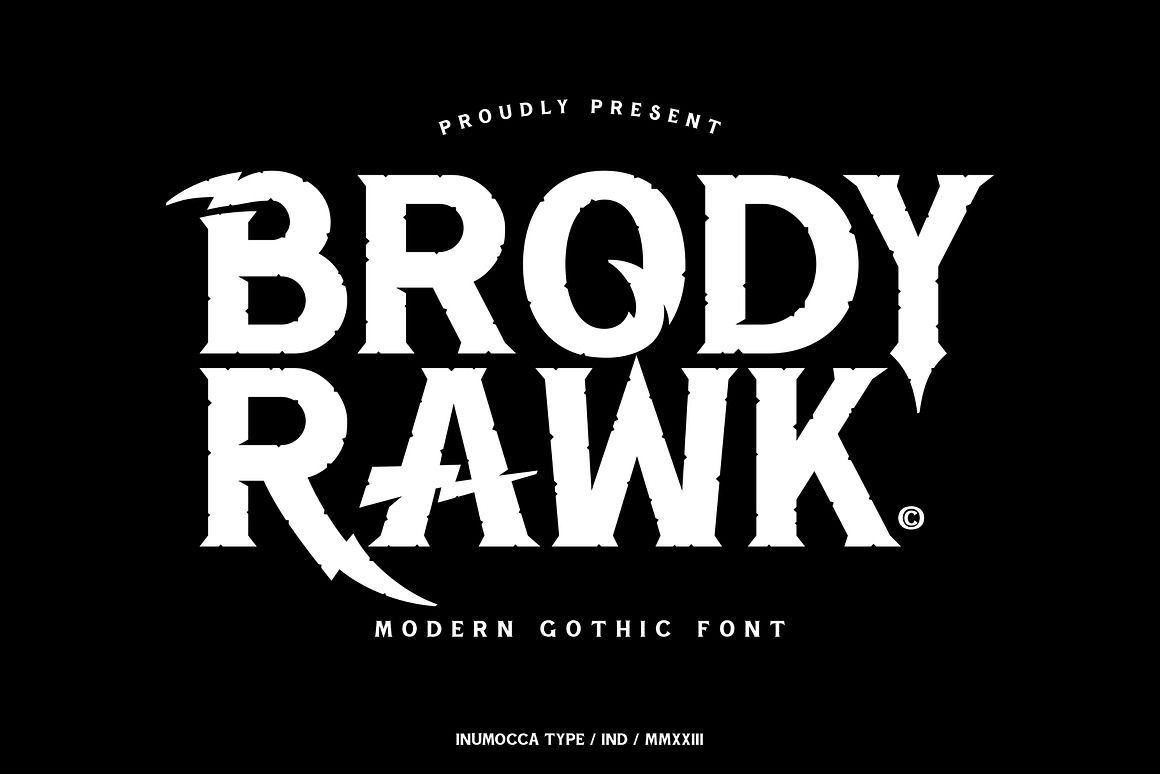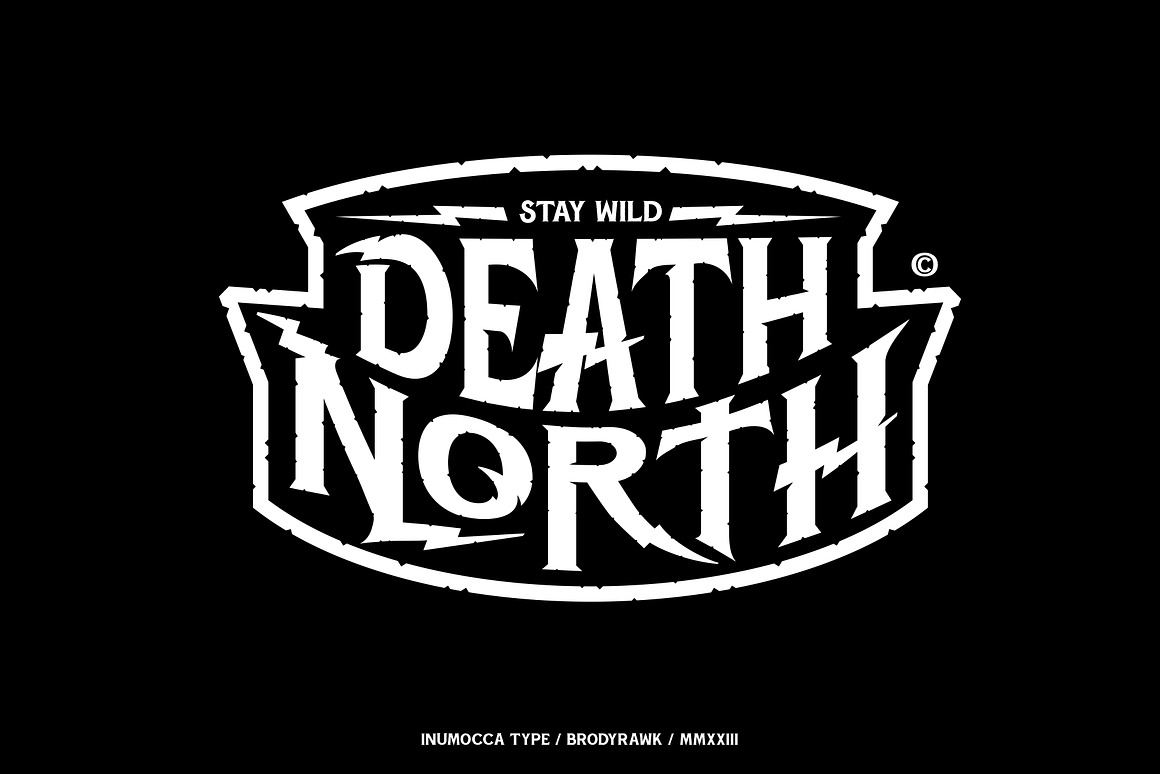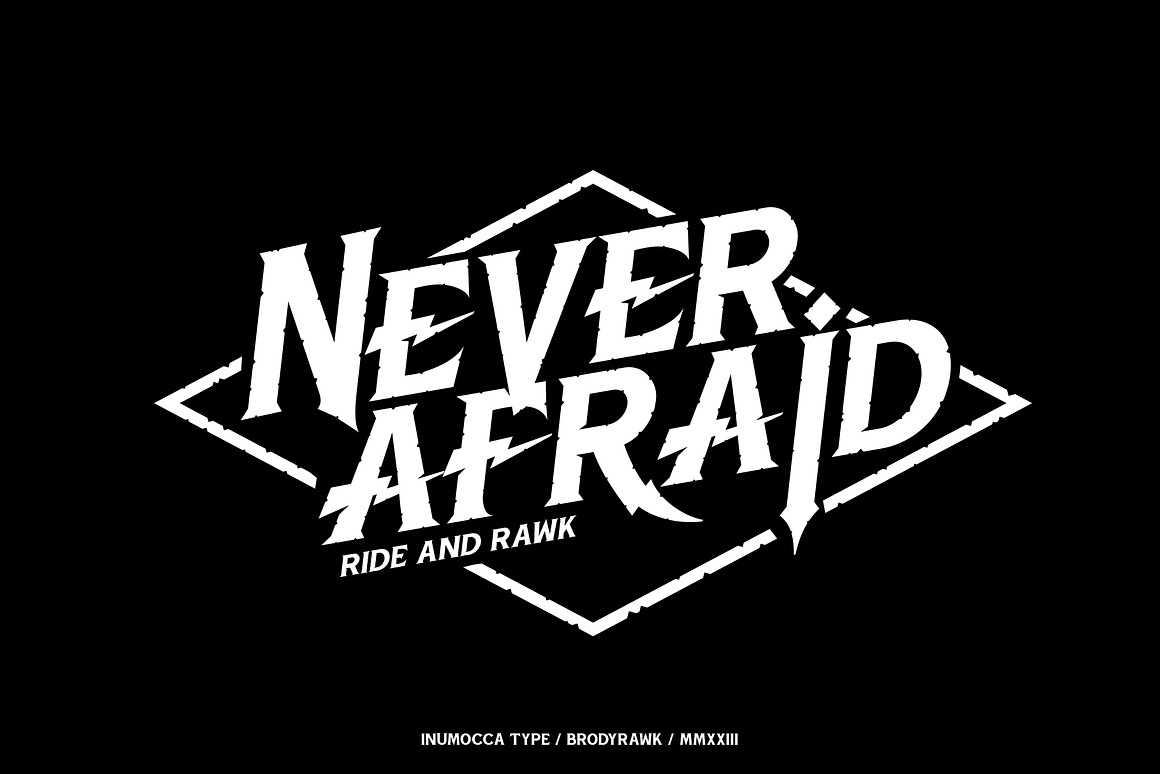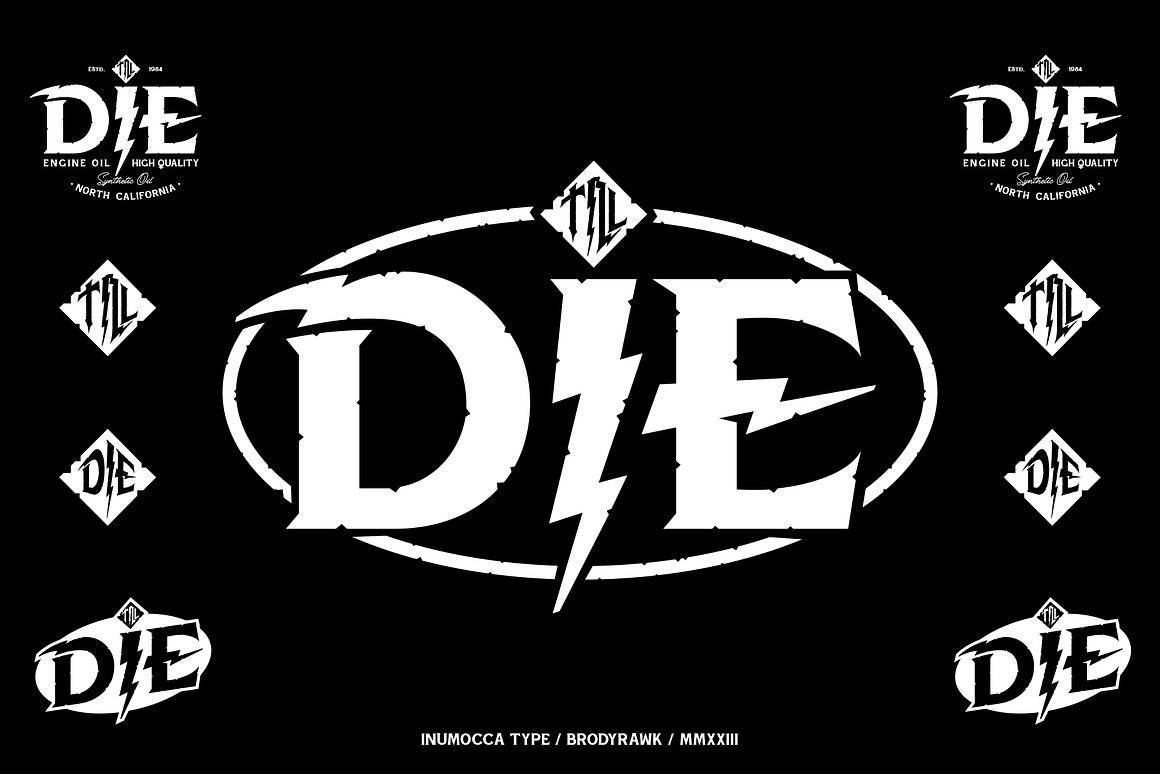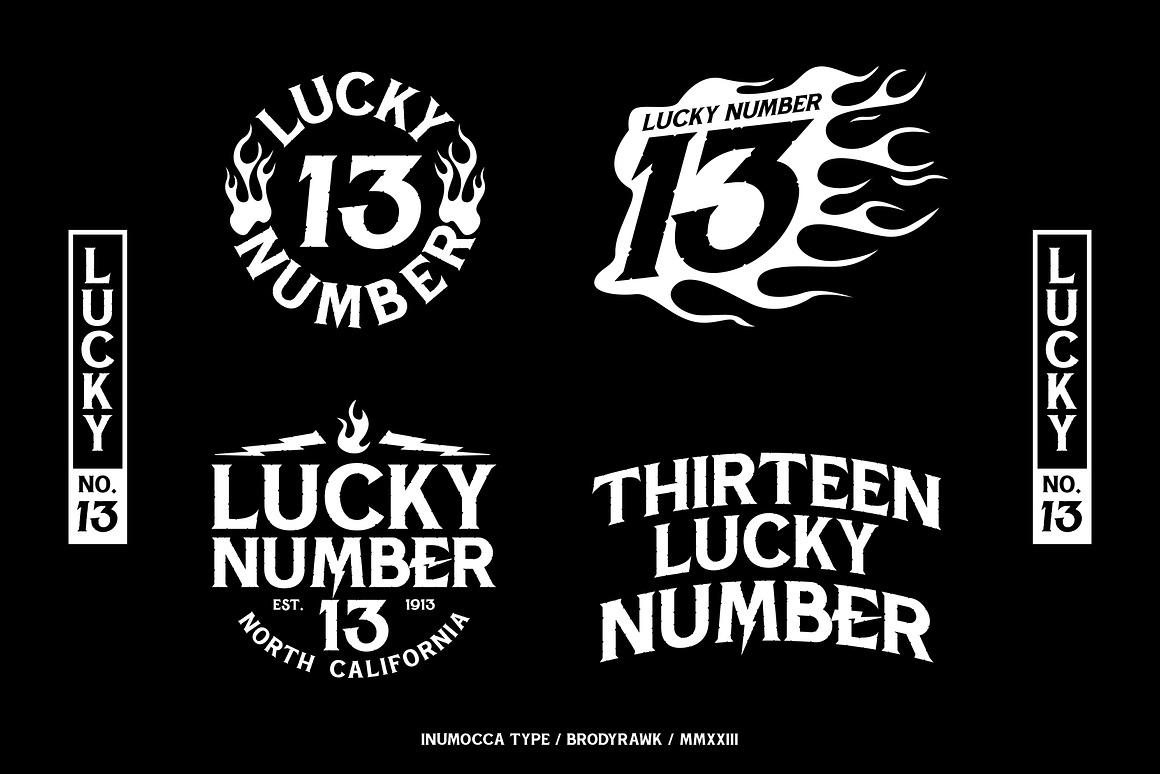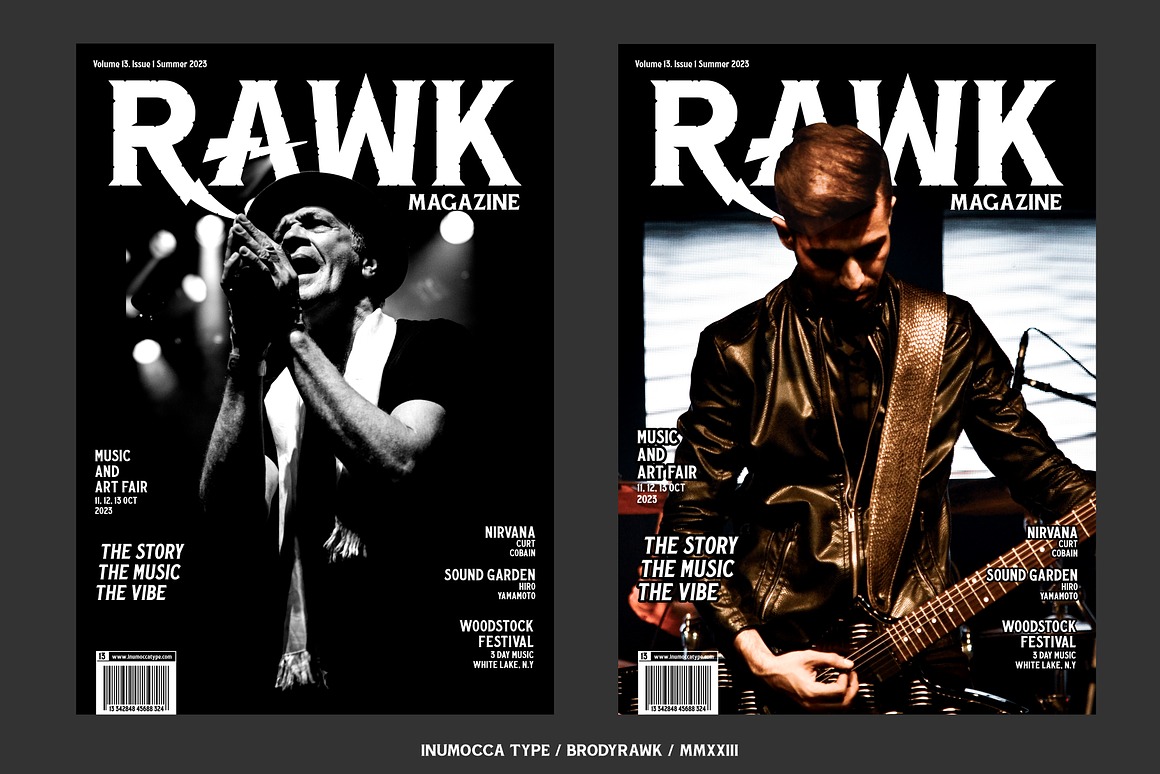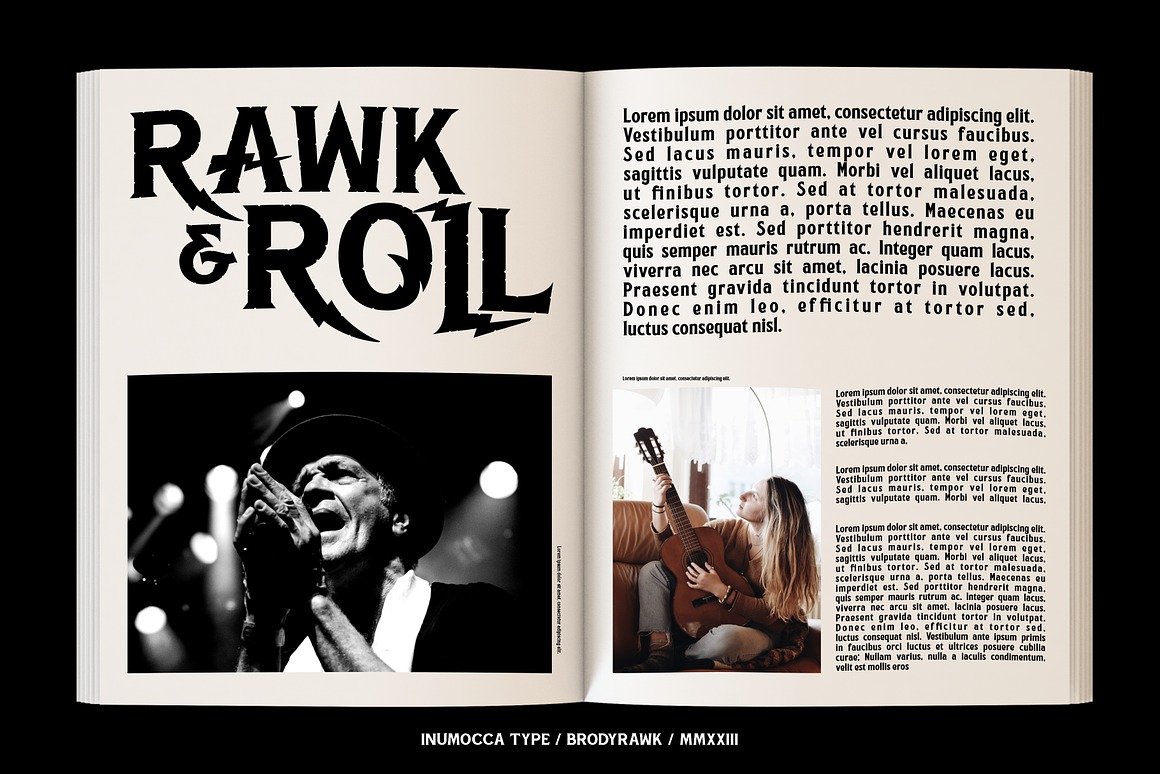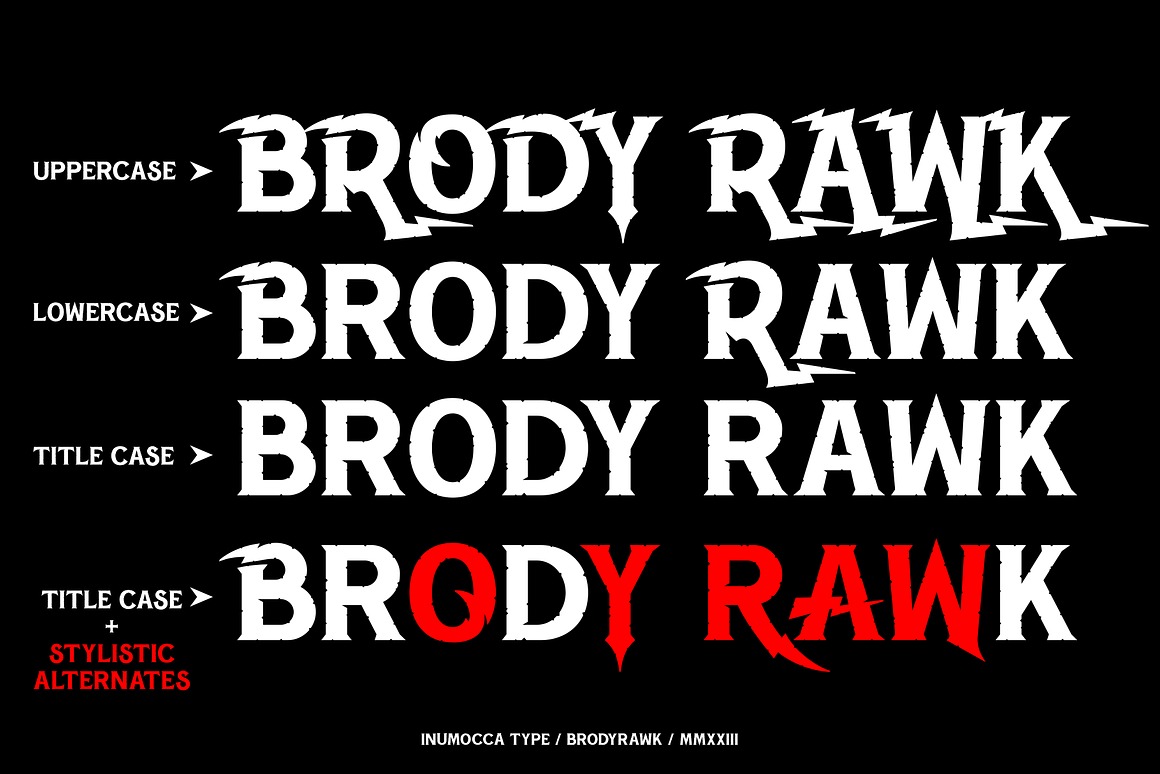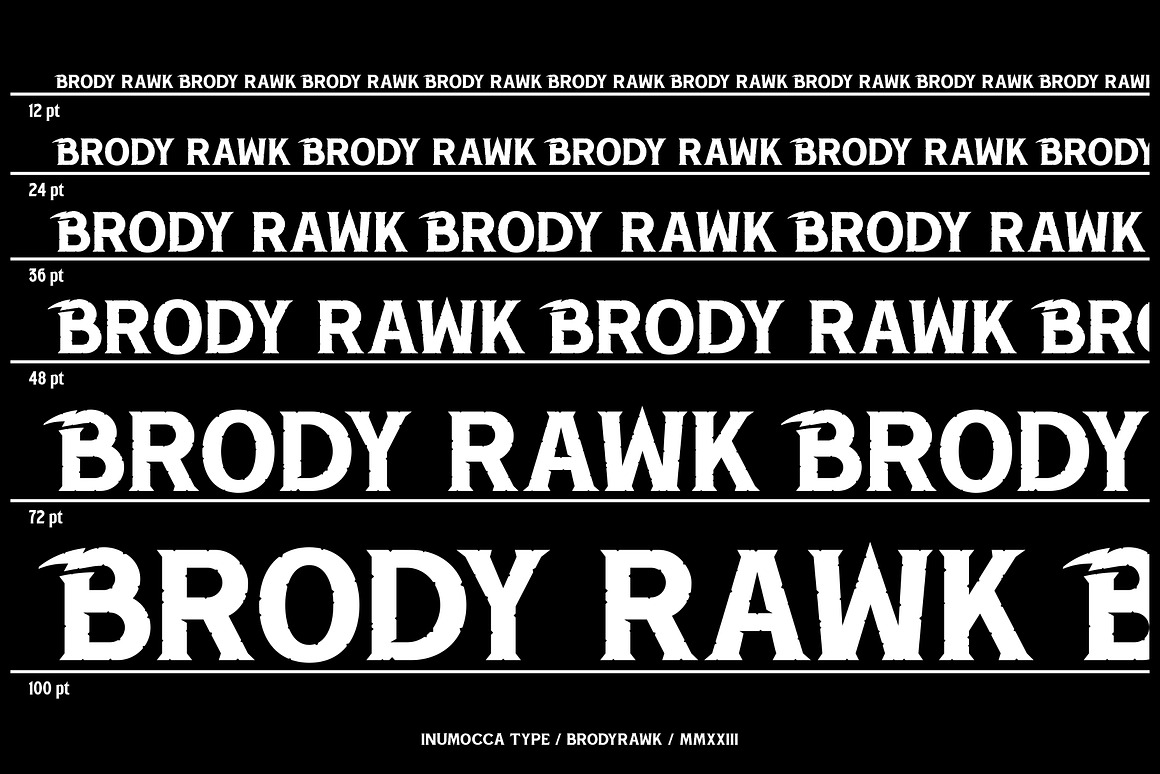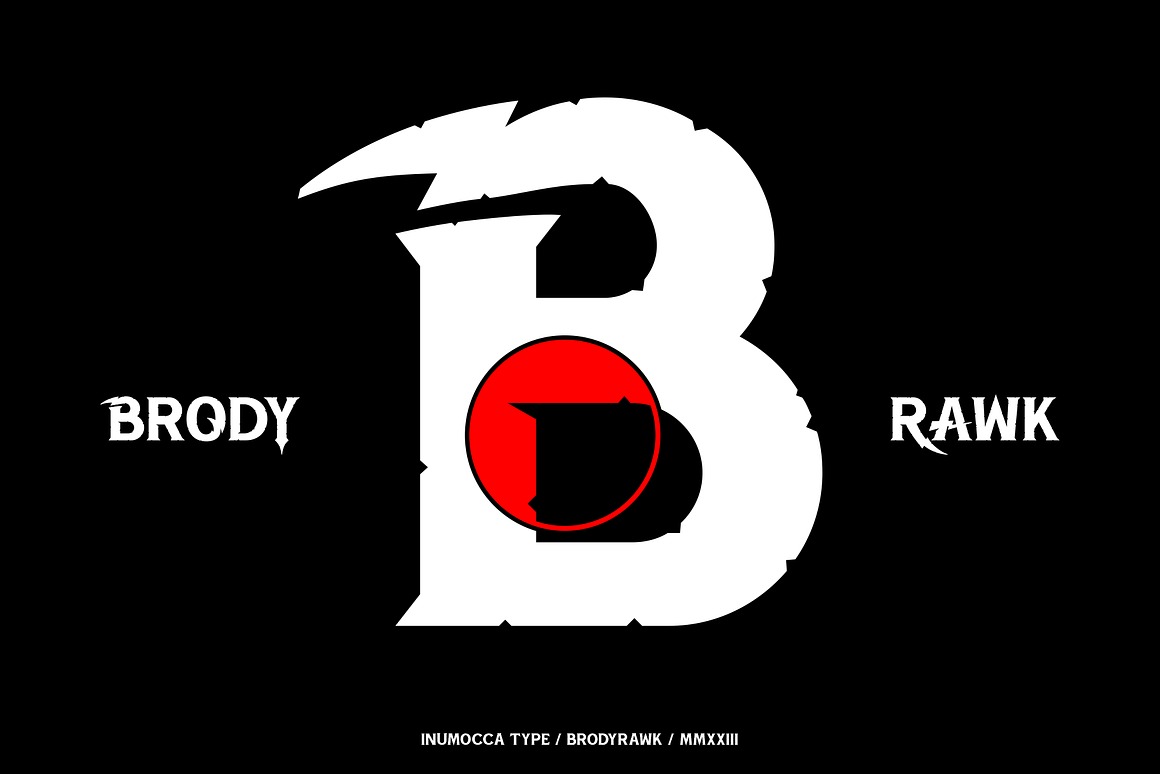
4 Halloween & Horror Display Fonts
Brand new unique & creative style typography bundle with 4 multilingual display font sets! All these fonts are trendy, creative, scary, horror & Halloween so you can use it for any kind of cartoon or funny style branding projects or T-shirt designs 😉
4 Halloween & Horror Display Fonts from inumocca contains 4 unique, funny, scary & crazy display fonts for your new projects! Don’t miss this creative & Halloween style font & branding bundle 😉
• 4 unique, funny, scary & crazy display fonts for your new projects!
• Great for any branding projects, posters or T-shirt designs…
• Multilingual support, stylistic alternates & ligatures
4 unique, funny, scary & crazy display fonts for your new projects!
Trendy, sharp, modern, scary, horror & cartoon style display fonts for your creative projects. Artistic and unique style on these fonts will be great for any branding project. Lot of alternates and ligatures will help you to create original logo design or website header! Enjoy 🙂
01. Hallow Franken from inumocca
Hallow Franken Halloween Display Font, deep horror feel, scream, weat and raw. come with some simple Ligature for covering your Project, like Branding, Movie Title, Headline Letter, Bookcover or Book Content, Magazine cover, Poster, Quotes Lettering, Logos, and more your project design.
02. Camora from inumocca
Camora come from Gothic lettering, Modern Display Blackletter typography bold strokes. the Textura Blackletter kinds, really strong, powerfull. so they are look best used for headings, logos, poster , sign, beer label, Music, Book and many more. Really great font to covering your Project
03. Brody Rawk from inumocca
Brody Rawk is modern gothic font. inspired by a traditional carved wooden Powerfull and has a very distinct and unique Character The Typeface comes with Stylistic Set Features Exellent Font to use for covering your Project, like Branding, Movie Title, Headline Letter, Bookcover or Book Content, Magazine cover, Poster, Quotes Lettering, Logos, and more your project design.
• Stylistic Set (ss01)
04. New Wave Soho from inumocca
New Wave Soho Display Font, inspiration from punk poster, full energy, rebel, anti mainstream and dare to take something different. you will feel like you are walking in the 70s era. New Wave Soho presenting more alternates glyphs to pour your wild ideas. simplel for access of Unique Alternates Exellent typeface to use for covering your Project, like Branding, Movie Title, Headline Letter, Bookcover or Book Content, Magazine cover, Poster, Quotes Lettering, Logos, and more your project design.
• Stylistic Set Alternates